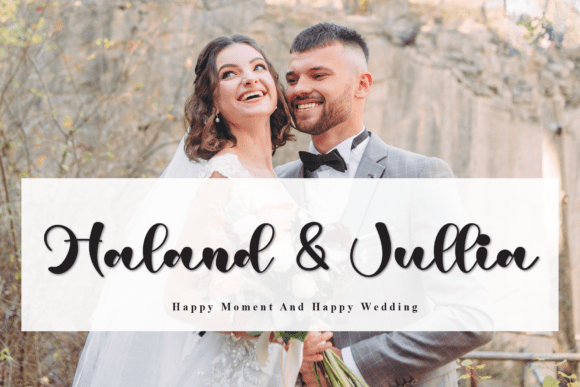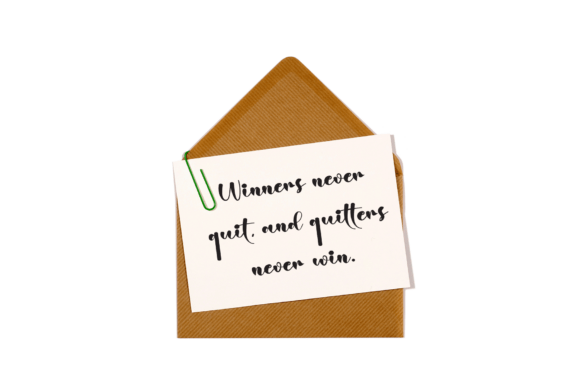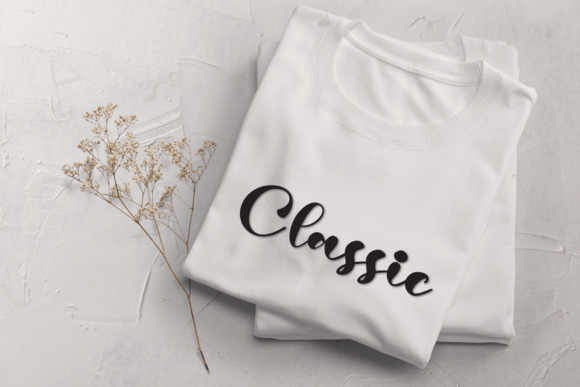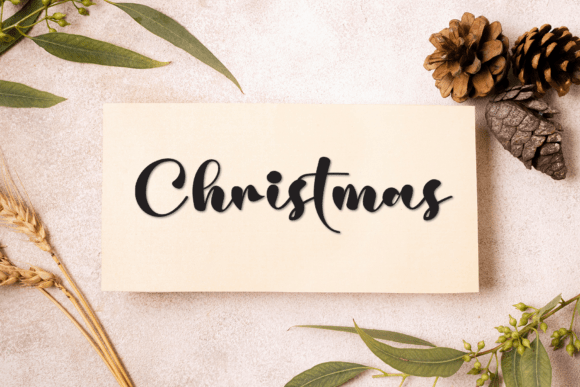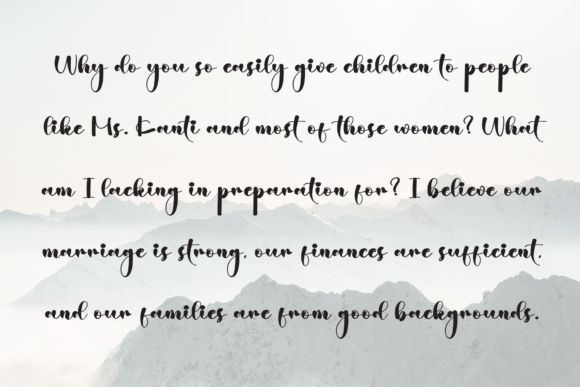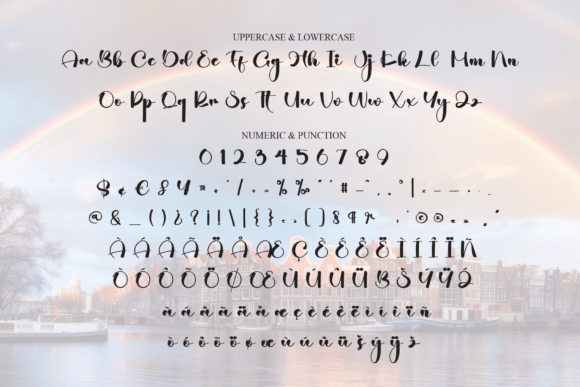
The Elegance of Amsterdam Font: A Designer’s New Best Friend
I still remember the design project that led me to discover the Amsterdam Font. I was working on a luxury brand’s invitation suite, and I was struggling to find the perfect script font that exuded elegance and sophistication. The client wanted something that would make their high-end event stand out, but I was coming up blank. That’s when I stumbled upon Amsterdam Font, and it was love at first sight! ✨
- ✨ Elegant and contemporary design that instantly elevates any project
- ✅ Fluid curves and carefully crafted letterforms that mimic hand-drawn calligraphy
- ✅ Versatile and suitable for various design applications, from logos to social media graphics
- ✅ Natural flow and polished details that make it a joy to work with
While Amsterdam Font is an excellent choice for many projects, there are a few things to keep in mind: ⚠️
- 🤔 It may not be the best choice for very small font sizes, as some details might get lost
- ⚠️ It requires a decent understanding of typography and OpenType features to get the most out of it
The Story Behind Amsterdam Font
Amsterdam Font was designed with the goal of creating a modern script font that captures the elegance and sophistication of hand-drawn calligraphy. The designer, inspired by the city’s rich history and cultural heritage, aimed to create a font that’s both refined and versatile. The result is a font that’s perfect for a wide range of design applications, from luxury branding to social media graphics.
Q: What is Amsterdam Font?
A: Amsterdam Font is a stylish script font that exudes elegance and contemporary charm. It’s designed to capture the beauty of hand-drawn calligraphy with a modern twist.
Q: What can I use Amsterdam Font for?
A: Amsterdam Font is versatile and suitable for various design applications, including logos, invitations, packaging, and social media graphics.
Q: Is Amsterdam Font easy to use?
A: Yes, Amsterdam Font is relatively easy to use, especially for those familiar with typography and OpenType features. However, it may require some practice to get the most out of it.